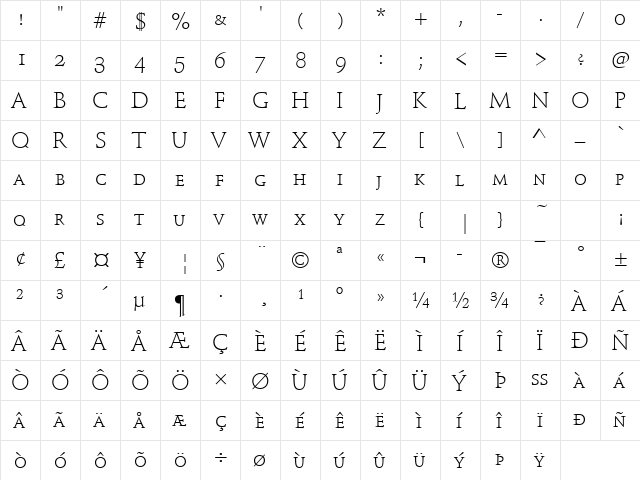
SchneidlerMedSCTLig Regular
Design Context for SchneidlerMedSCTLig Typeface
SchneidlerMedSCTLig is a composed and adaptable typeface that performs quietly and consistently across a wide range of design contexts.